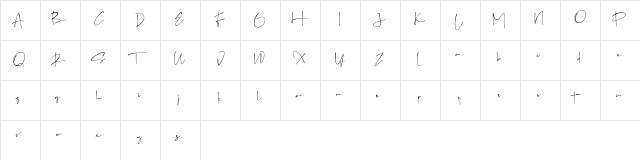
Galinta Signature - free Regular Font Preview
Galinta Signature - free Regular
Design Context for Galinta Signature - free Typeface
Galinta Signature - free is a composed and adaptable typeface that performs quietly and consistently across a wide range of design contexts.